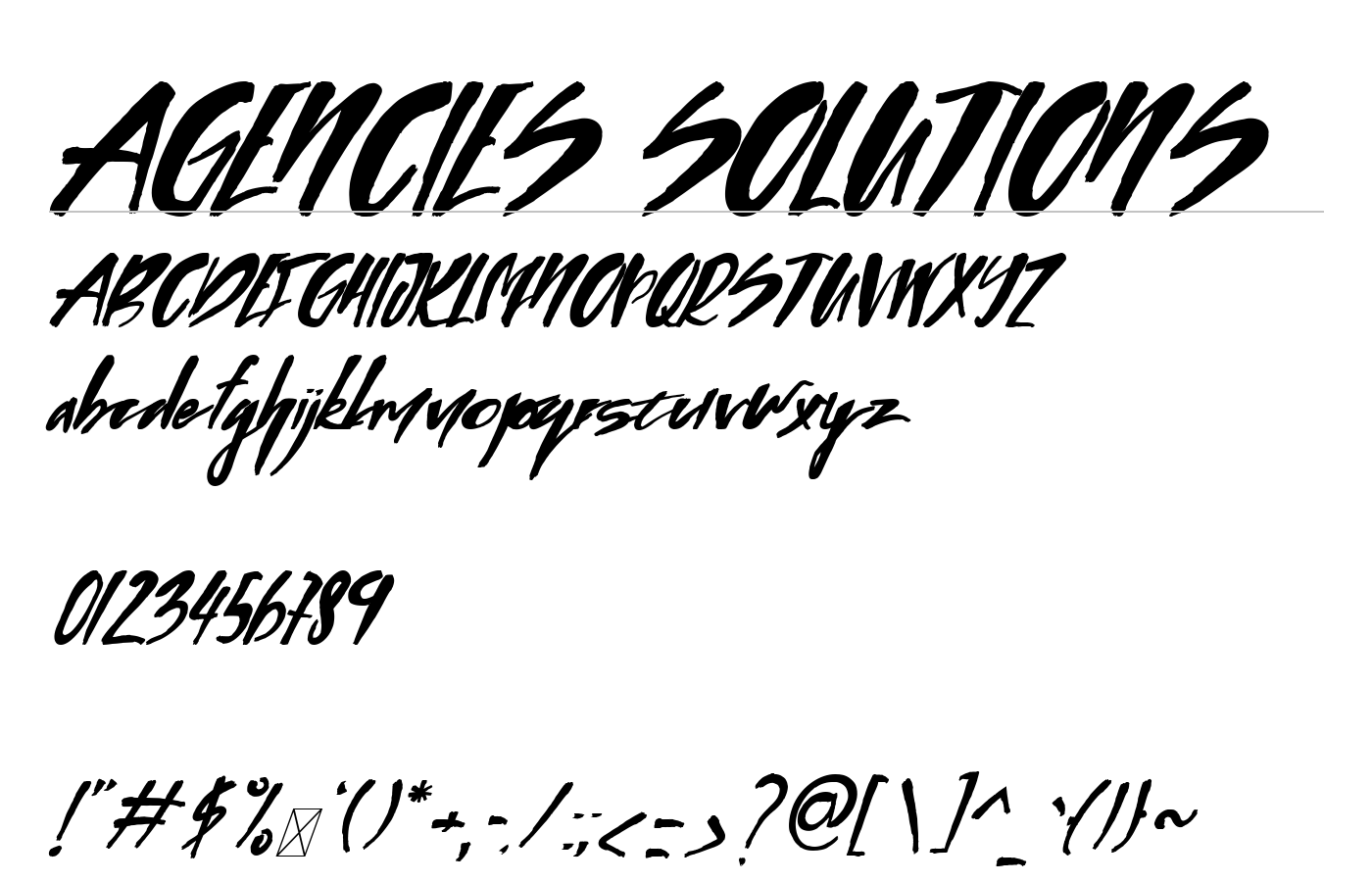
Agencies Solutions is a bold, dynamic script font with an energetic, hand-painted feel. Its sharp, brush-like strokes and slightly condensed forms give it a modern, expressive character perfect for grabbing attention in branding, posters, and creative headlines. This font works well where a strong, artistic vibe is desired, adding personality and movement to any design.
AGENCIES SOLUTIONS Font
About AGENCIES SOLUTIONS Font